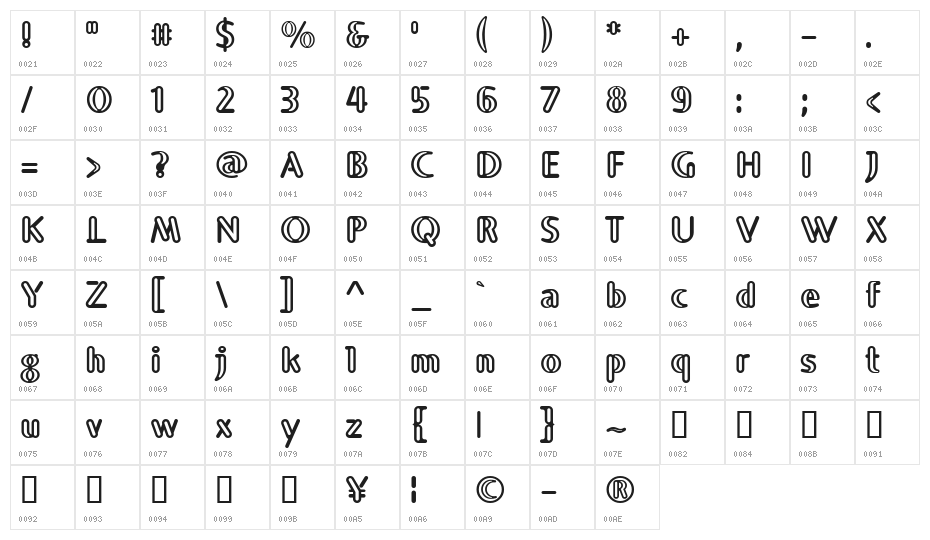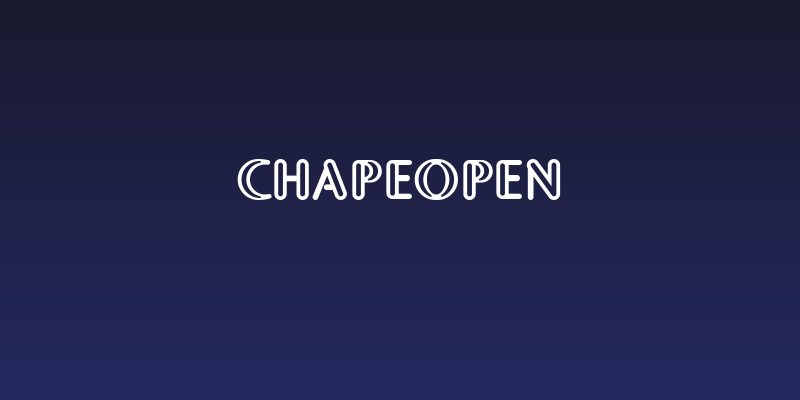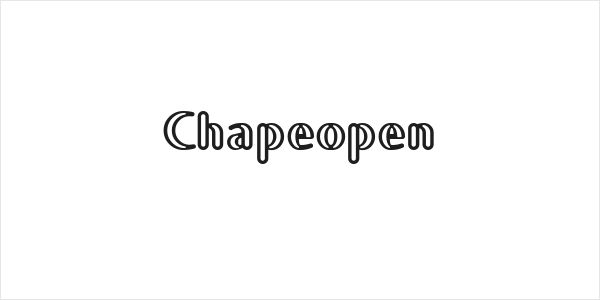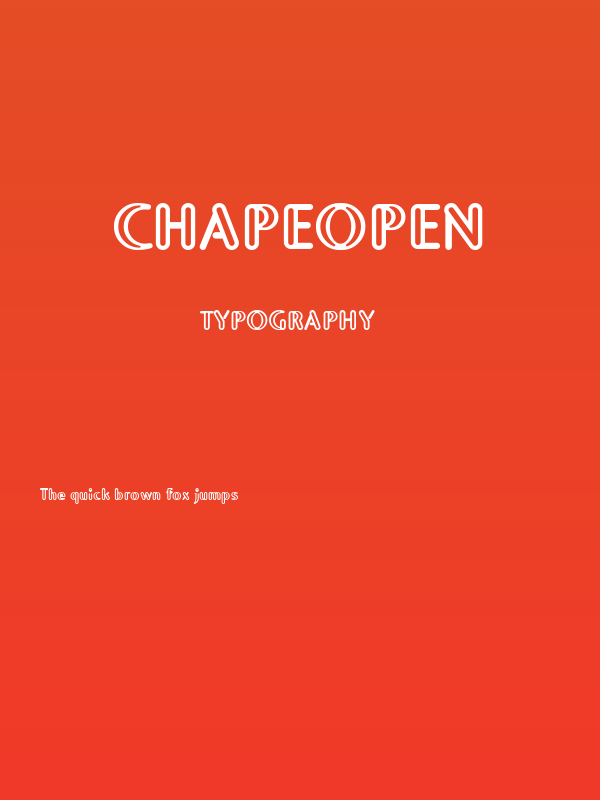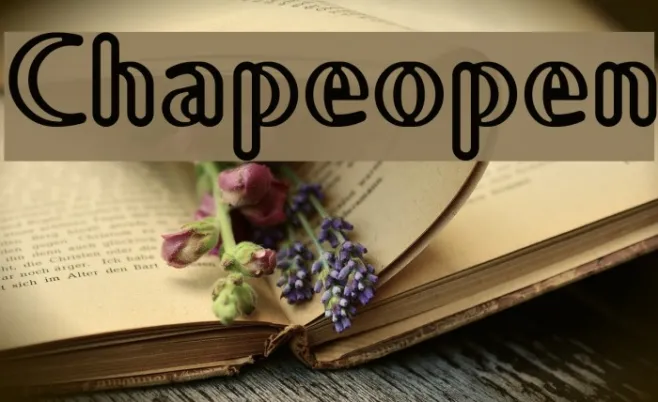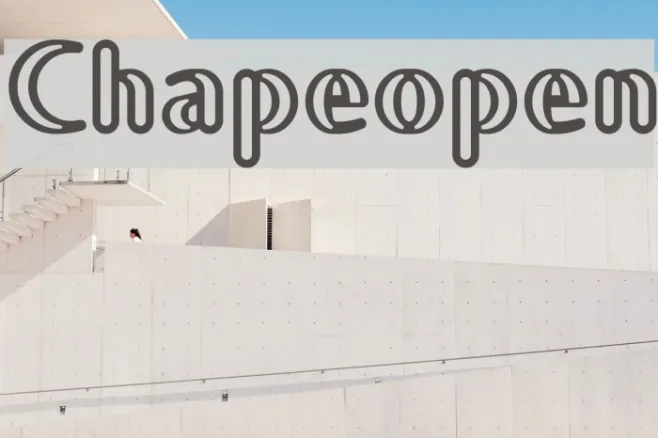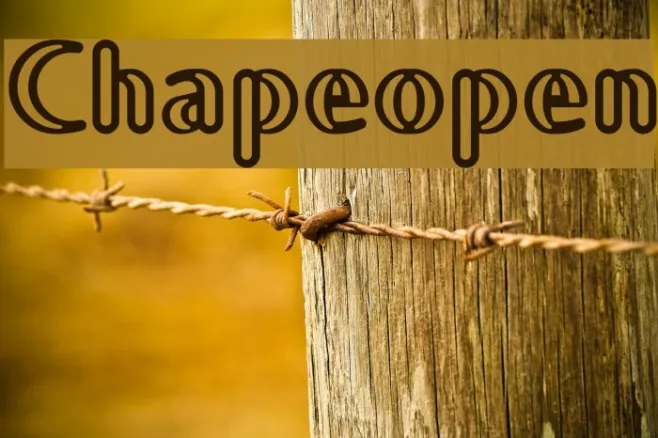
Chapeopen Font
Chapeopen Description
This font features a unique and playful design with a hollow, outlined style that gives it a three-dimensional appearance. The characters are bold and rounded, with a consistent stroke width that maintains a uniform look across all letters and numbers. The uppercase and lowercase letters share a similar structure, ensuring readability while adding a touch of whimsy. The numerals and special characters are designed to match the overall aesthetic, making them suitable for various creative applications. This font's distinctive style makes it ideal for projects that require a fun and engaging visual element.
| Overall Style | Playful, Modern |
| Proposed Projects | Ideal for children's books, playful branding, posters, and creative digital content. |